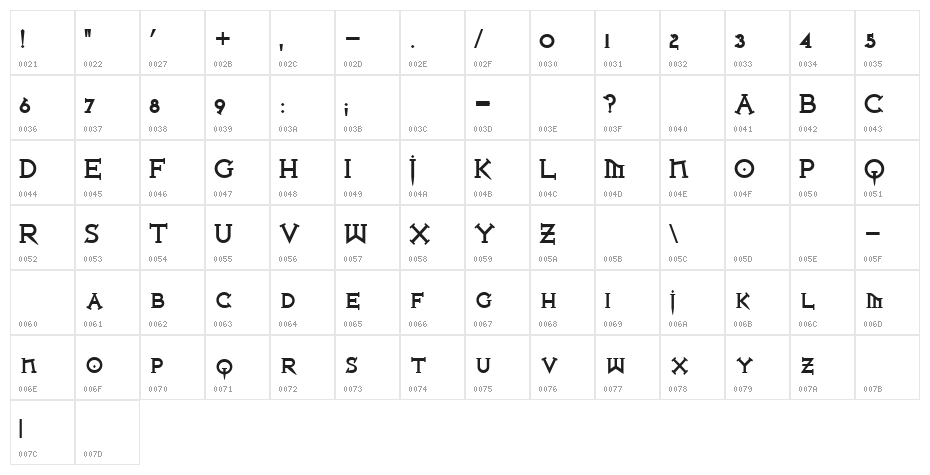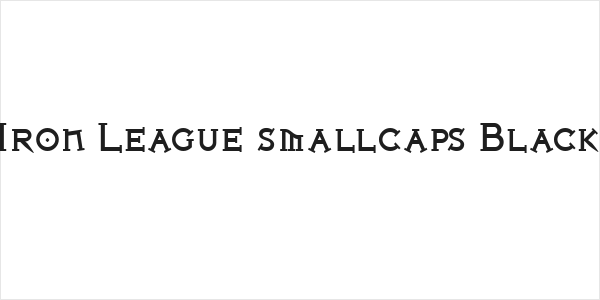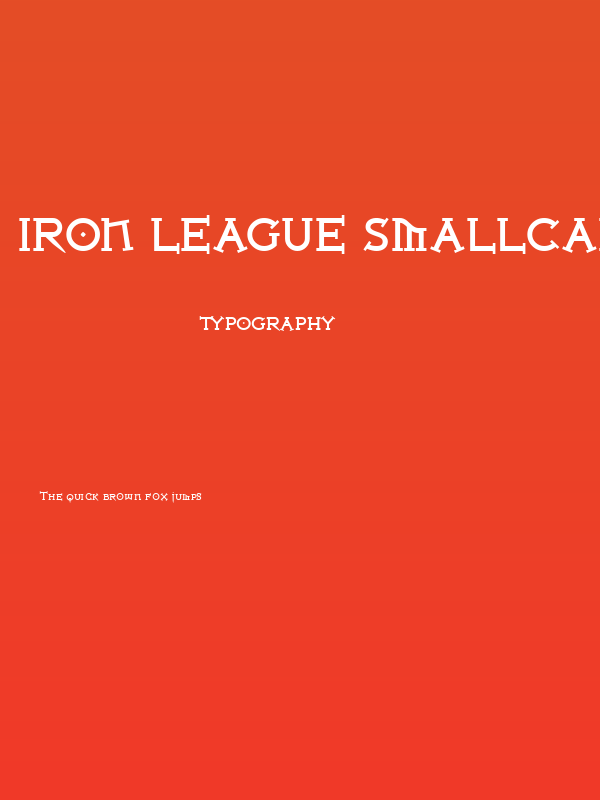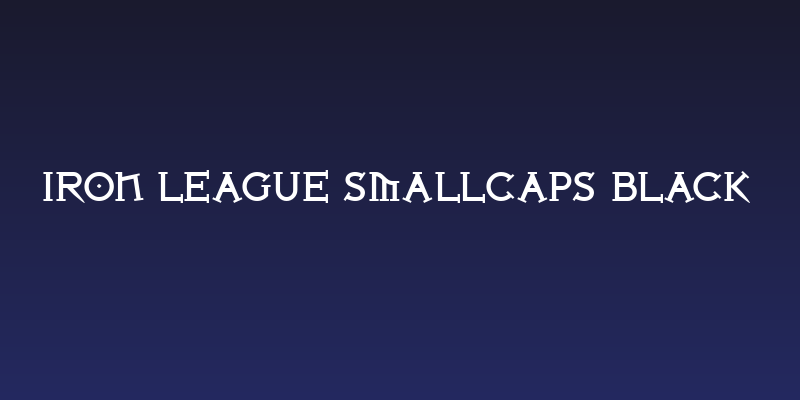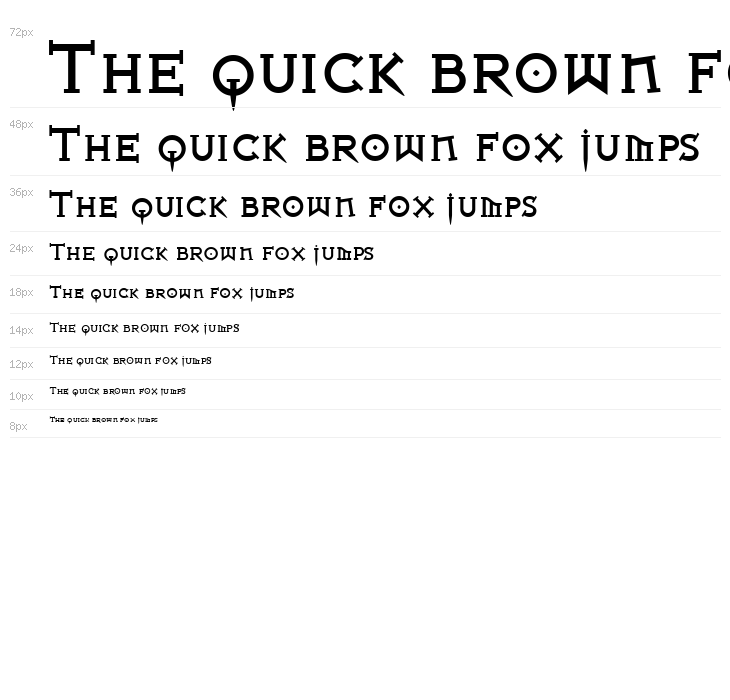
Iron League smallcaps Black Font
Iron League smallcaps Black Description
This font features a bold and striking design with sharp, angular serifs and a distinct geometric style. The characters are uniformly uppercase, giving it a strong and commanding presence. The unique design elements, such as the pointed tips and circular cutouts in letters like 'O' and 'Q', add a modern and edgy feel. The numbers and special characters maintain the same boldness and angularity, ensuring consistency across all glyphs. This font is perfect for projects that require a bold statement and a touch of modernity.
| Proposed Projects | Ideal for branding, logos, posters, and headlines that require a strong, modern aesthetic. |